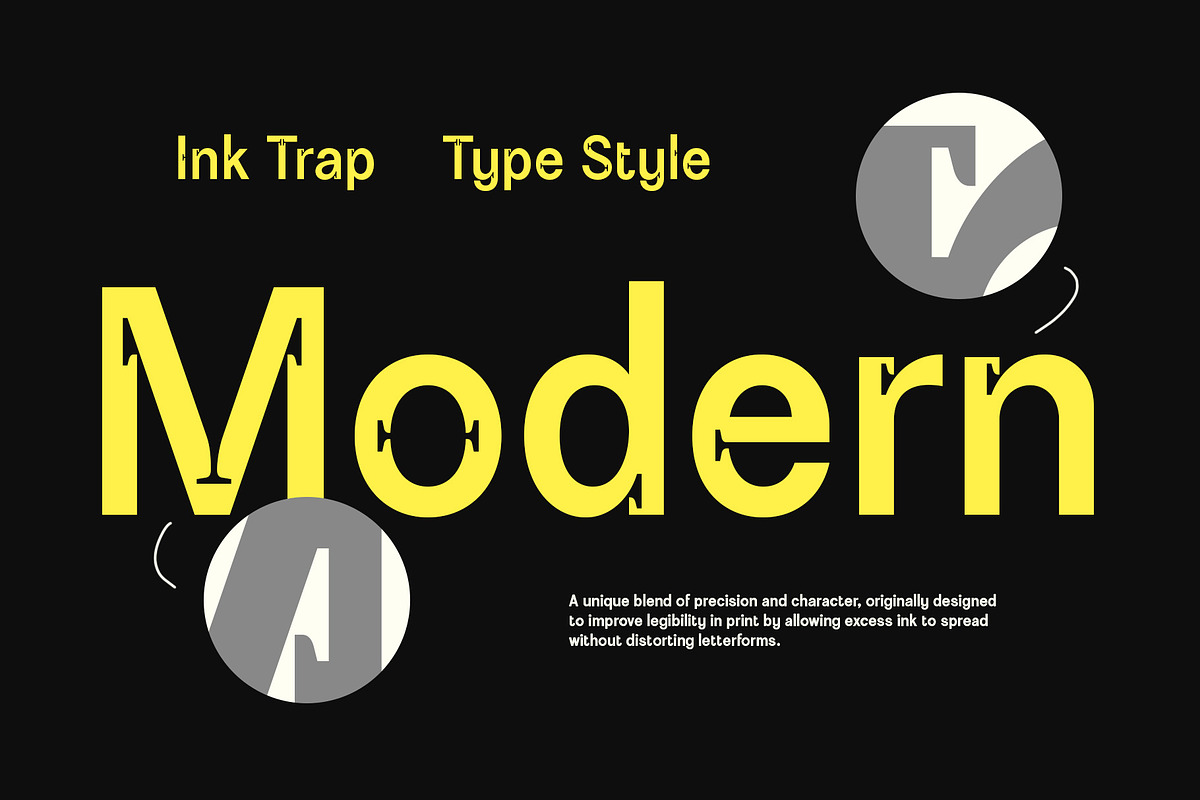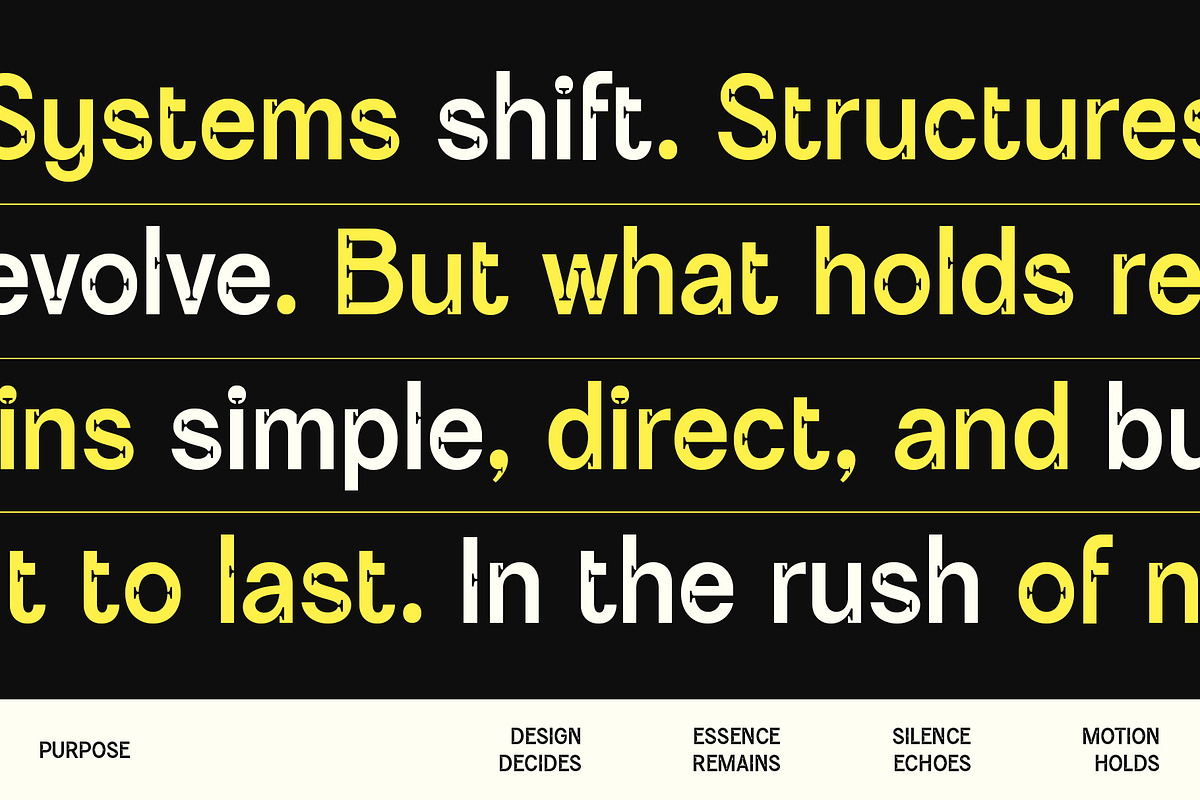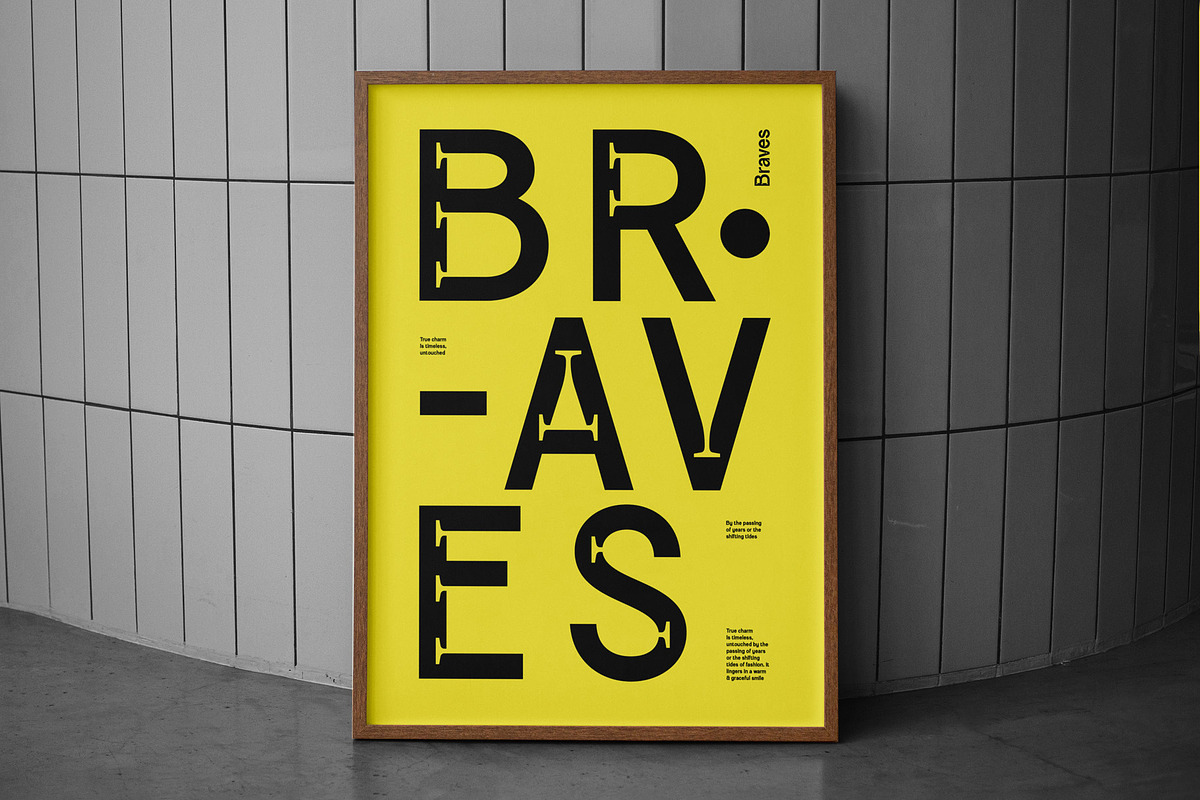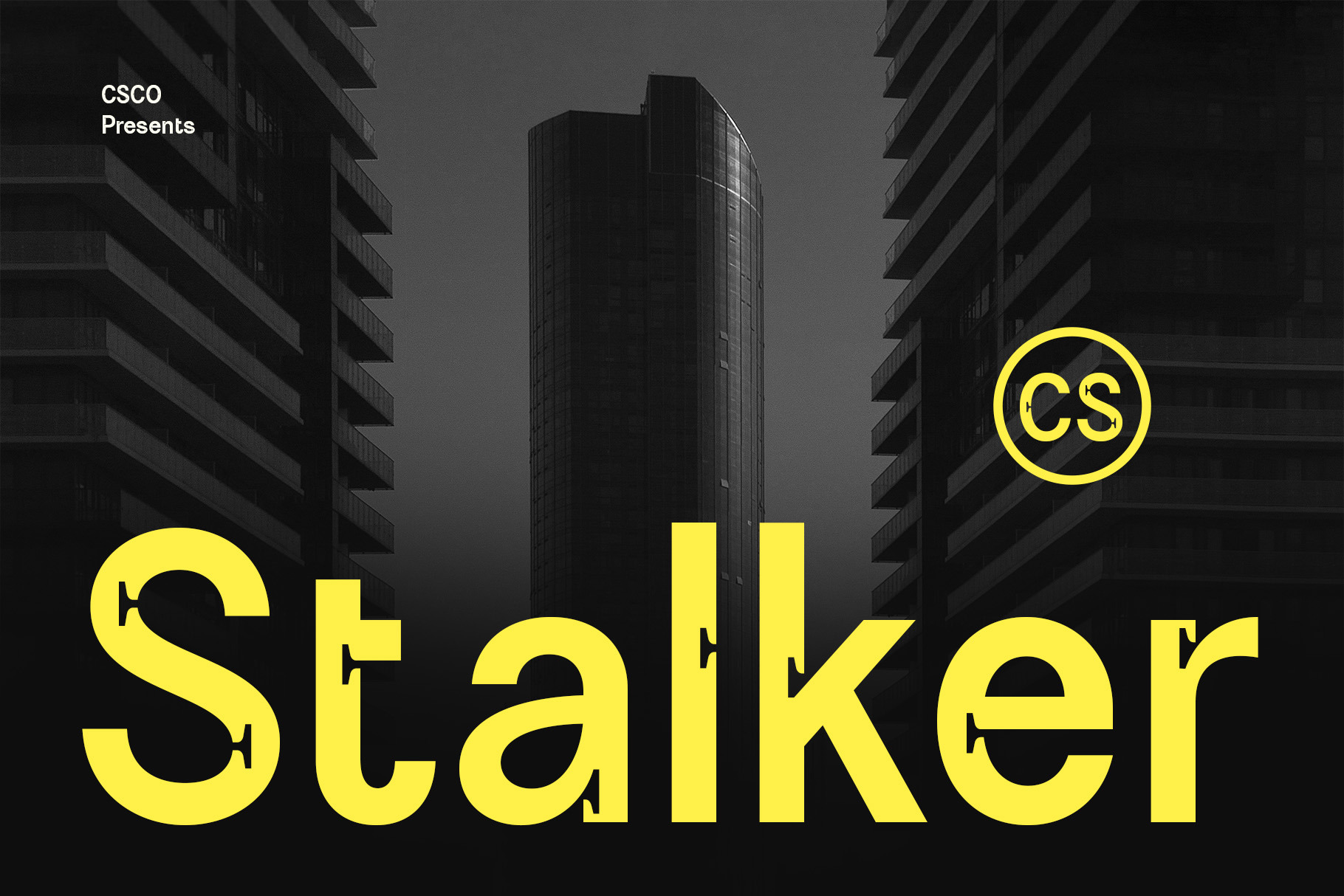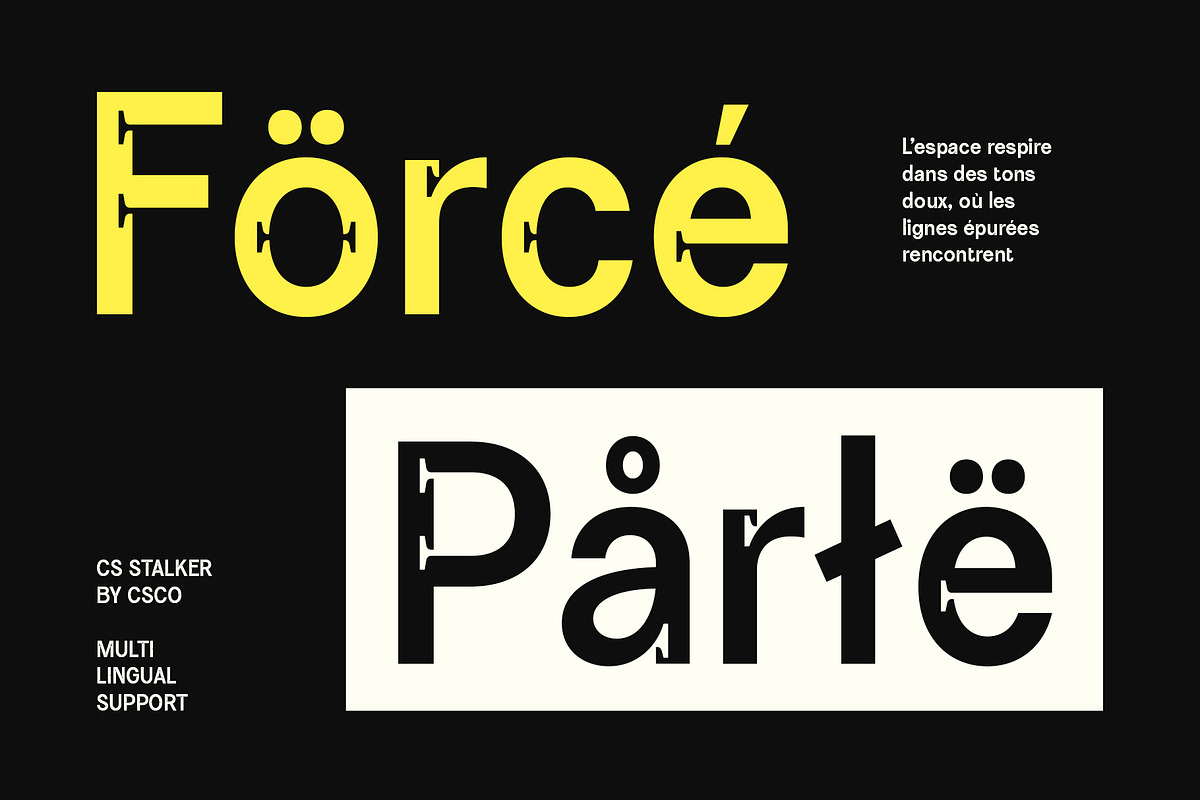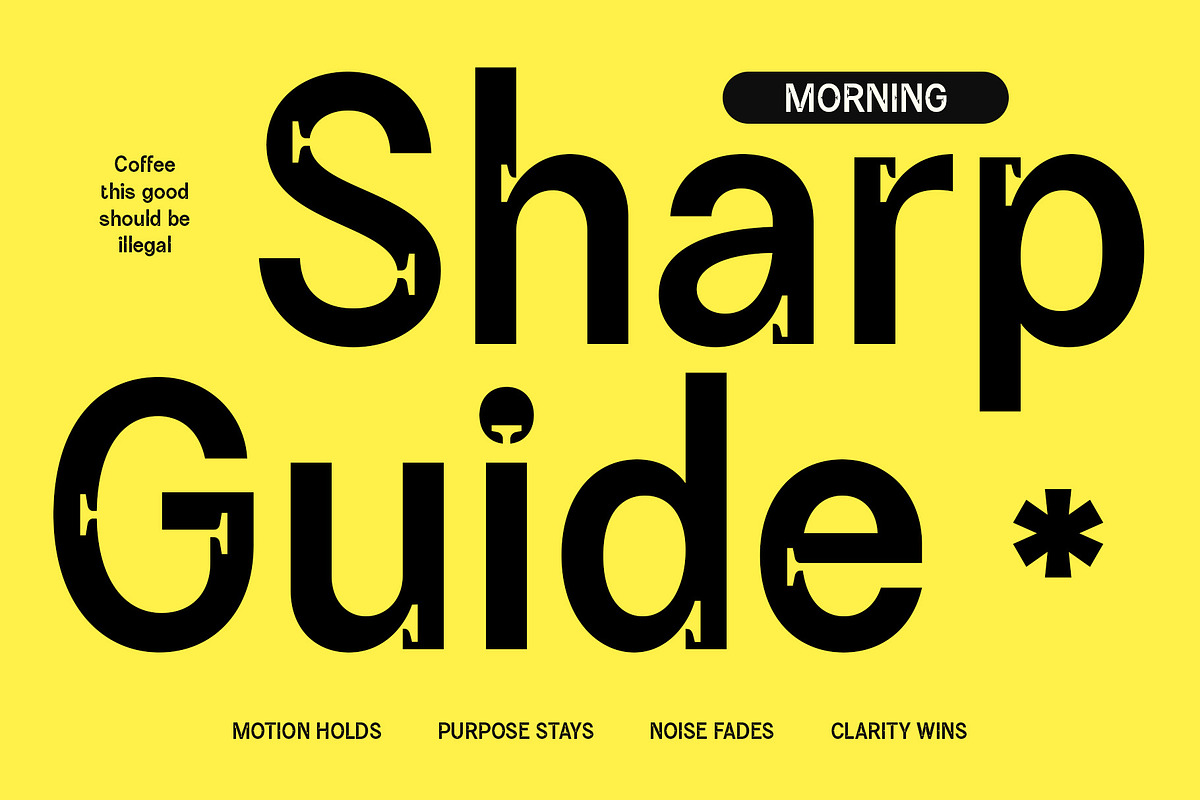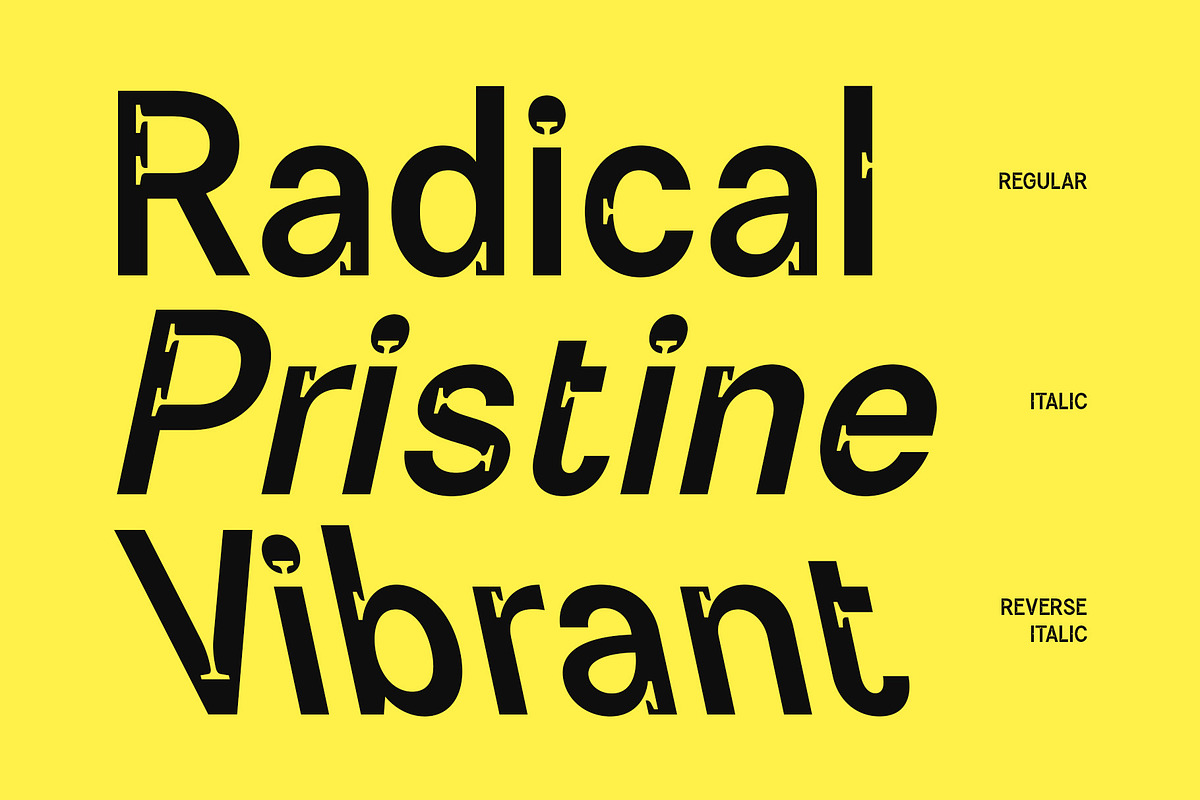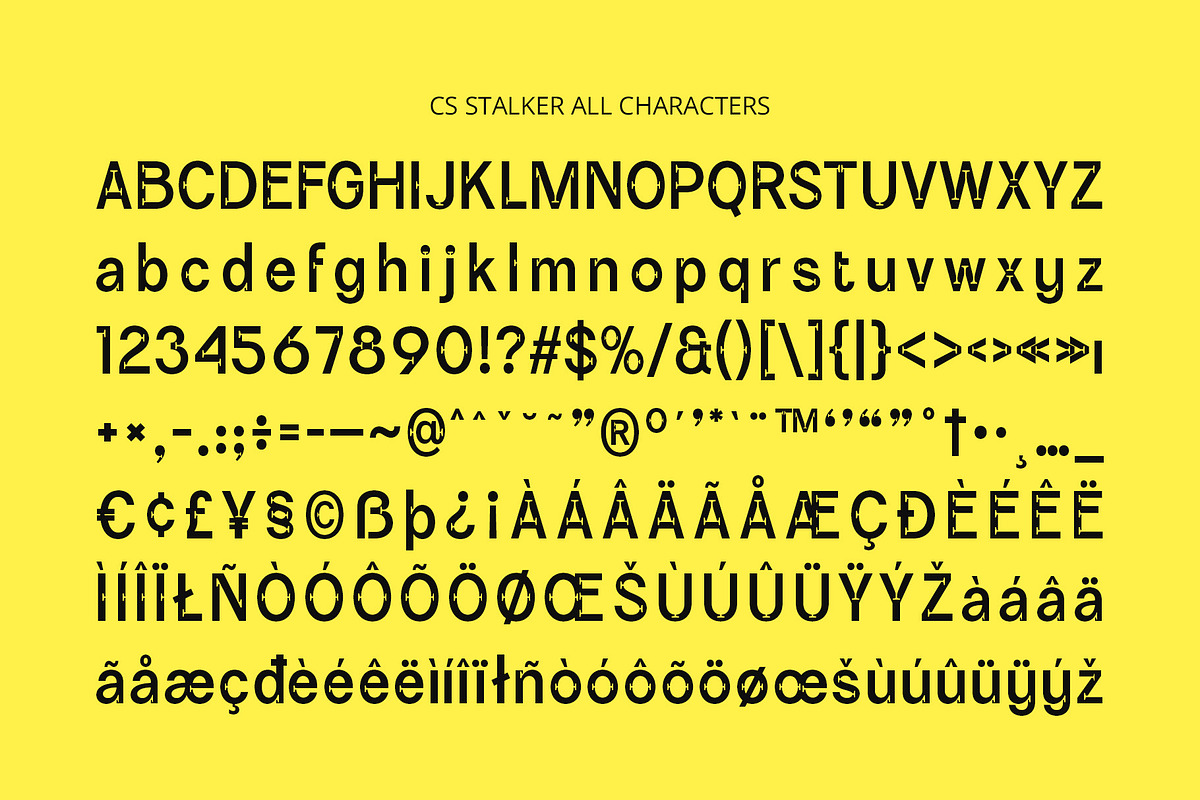
CS Stalker – Inktrap Font
CS Stalker – Inktrap Font: Precision Meets Character
Modern Sans Serif with Inktrap Style CS Stalker is a modern sans-serif font built with a geometric foundation and accented by distinctive inktrap cuts. This design approach delivers a clean, contemporary look while adding subtle personality to every character.
Geometric Base for a Strong, Structured Look With its geometric construction, CS Stalker brings precision and order to your typography. Each letterform is carefully shaped for balance and symmetry, projecting professionalism and modernity—ideal for layouts that value structure and clarity.
Inktrap Details for Subtle Uniqueness The inktrap features enhance both function and form, providing sharper corners and extra breathing room where strokes meet. These details subtly enrich the font’s visual texture, helping text remain crisp in both print and digital formats while giving it a distinctive identity.
Minimalist and Versatile for Modern Design Designed with a minimalist sensibility, CS Stalker works seamlessly across a wide range of design applications. Whether used in editorial layouts, corporate branding, or interface design, its streamlined form ensures versatility without losing character.
Perfect for Digital Branding and Editorial Clarity CS Stalker excels in designs that demand both clarity and visual sophistication. From tech-driven branding to clean editorial spreads, this font stands out with quiet confidence—bringing refined modernism and professional strength to every project.